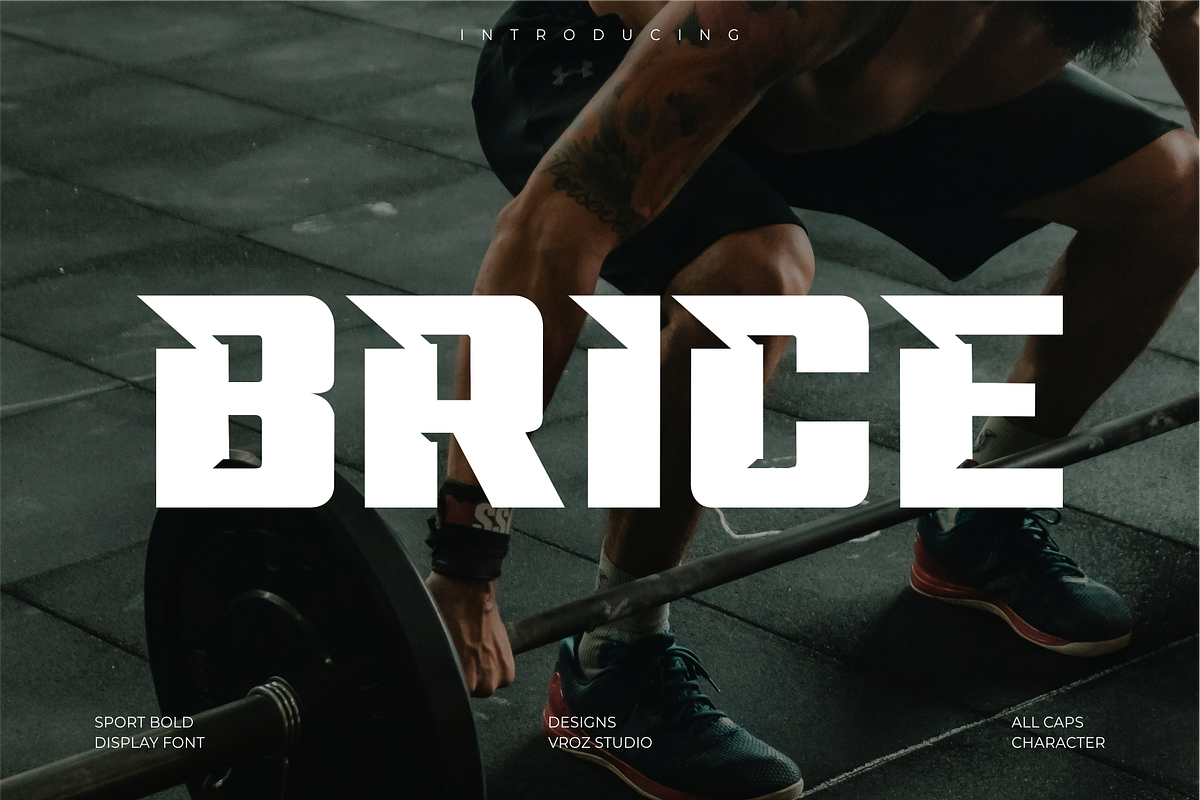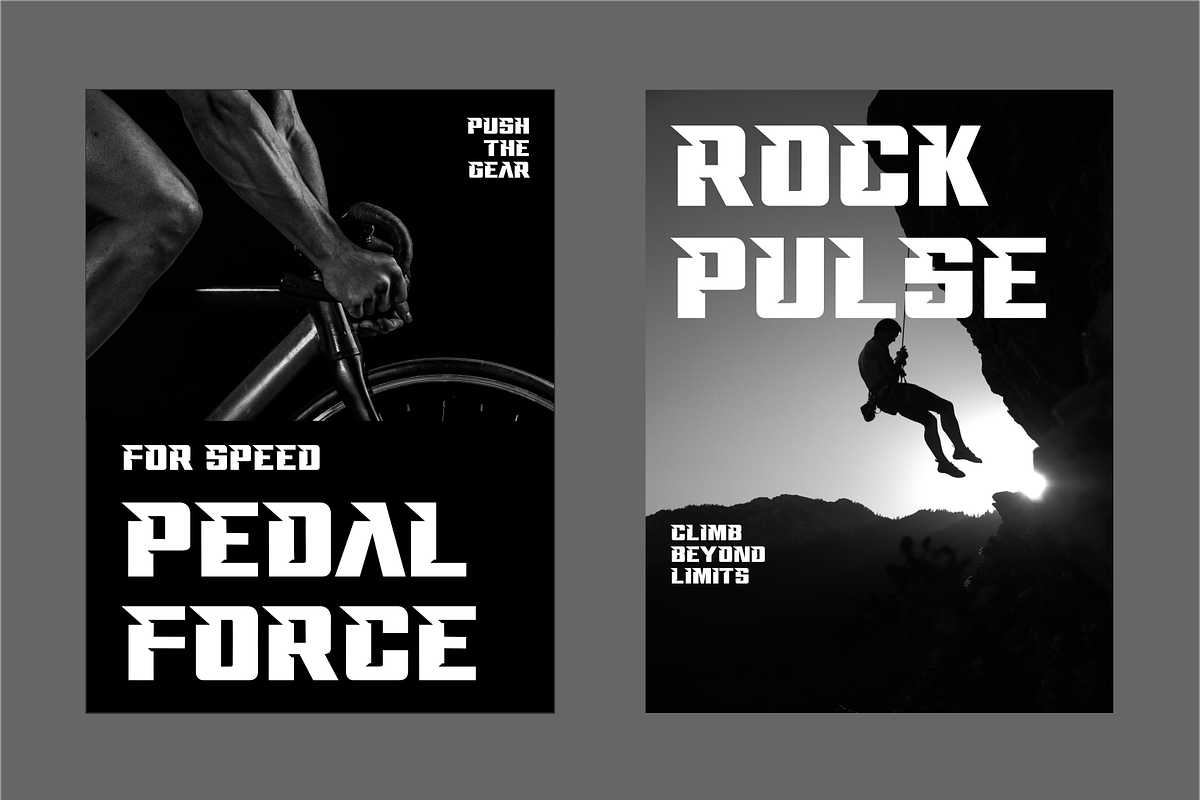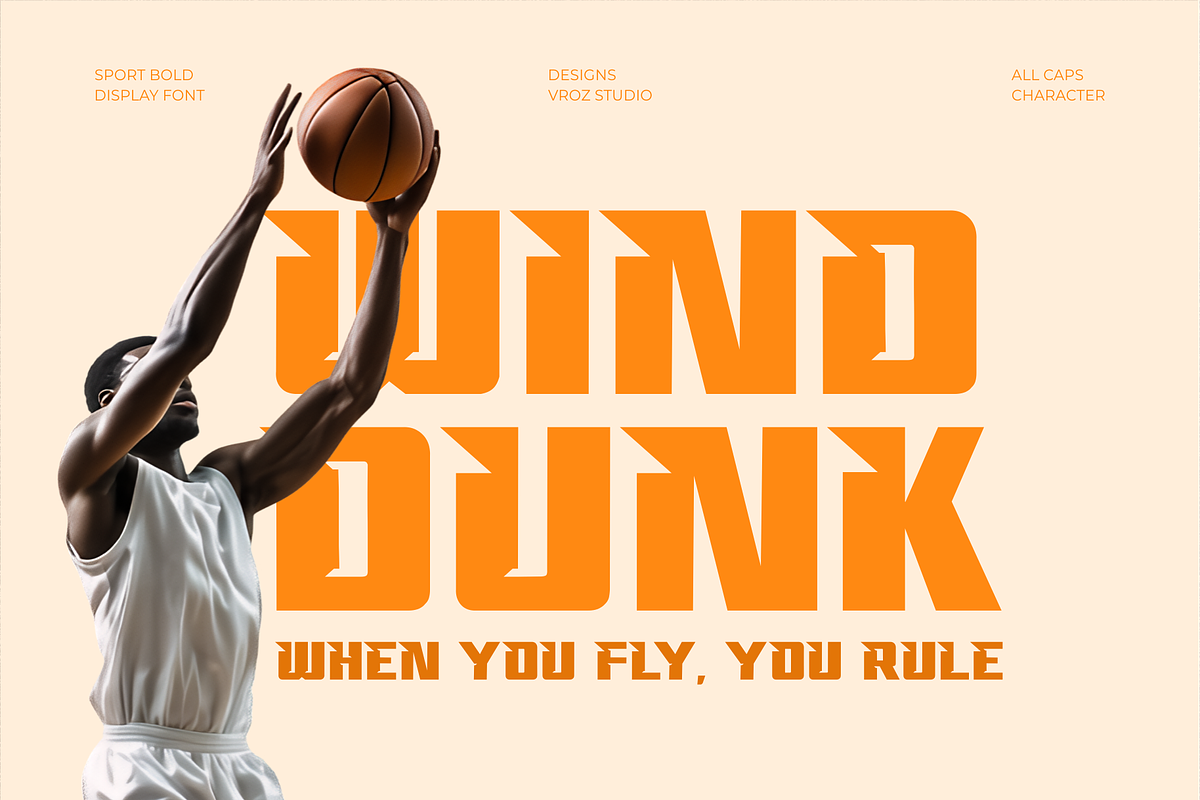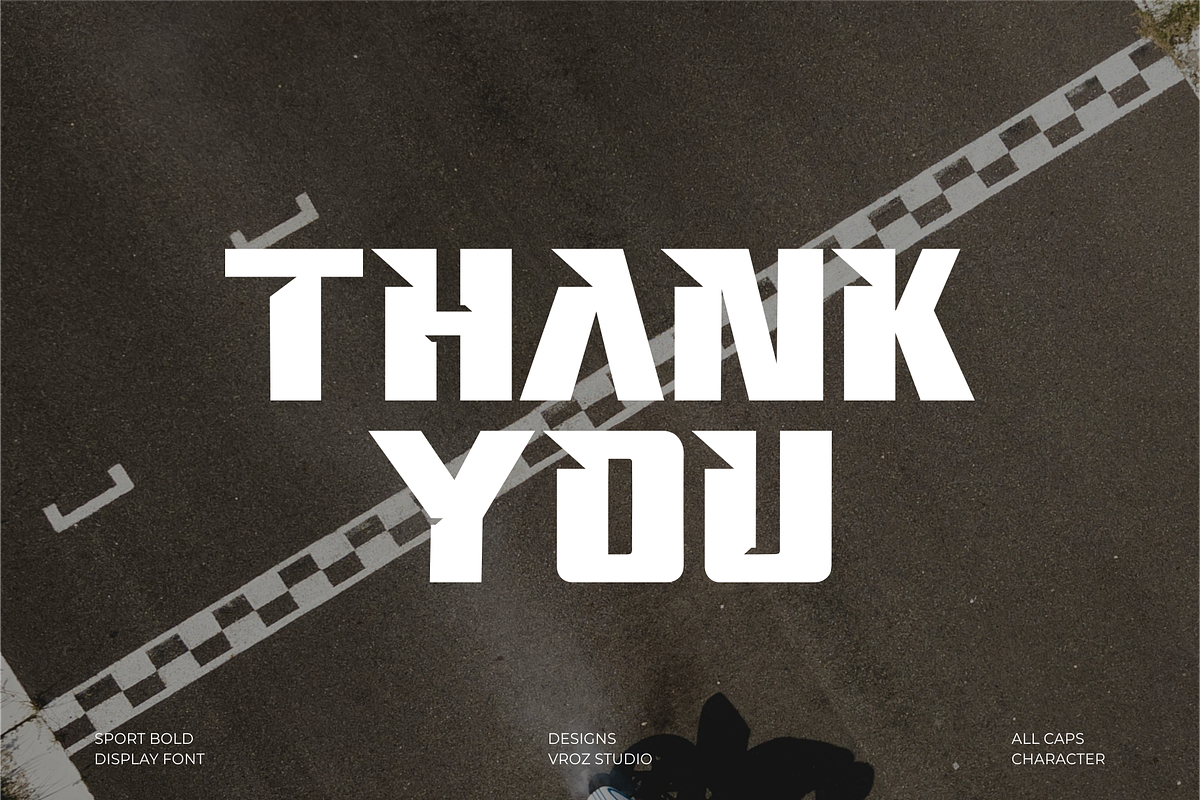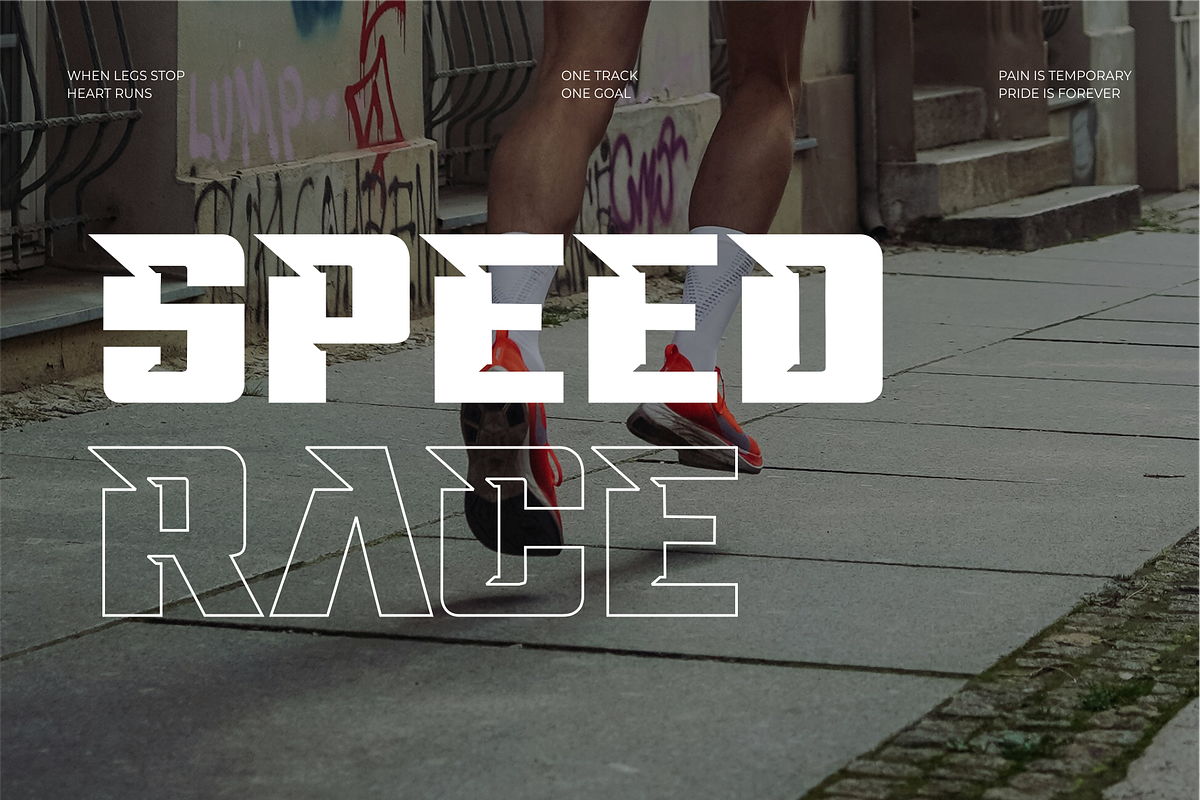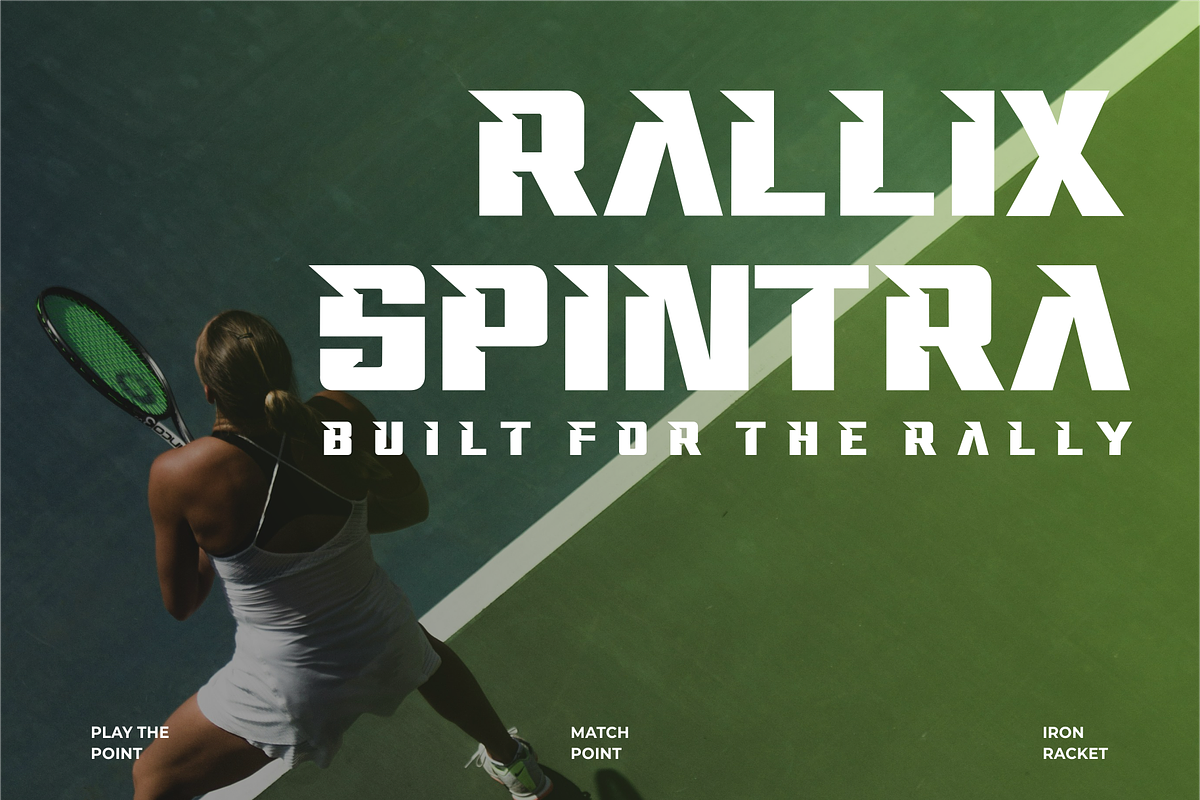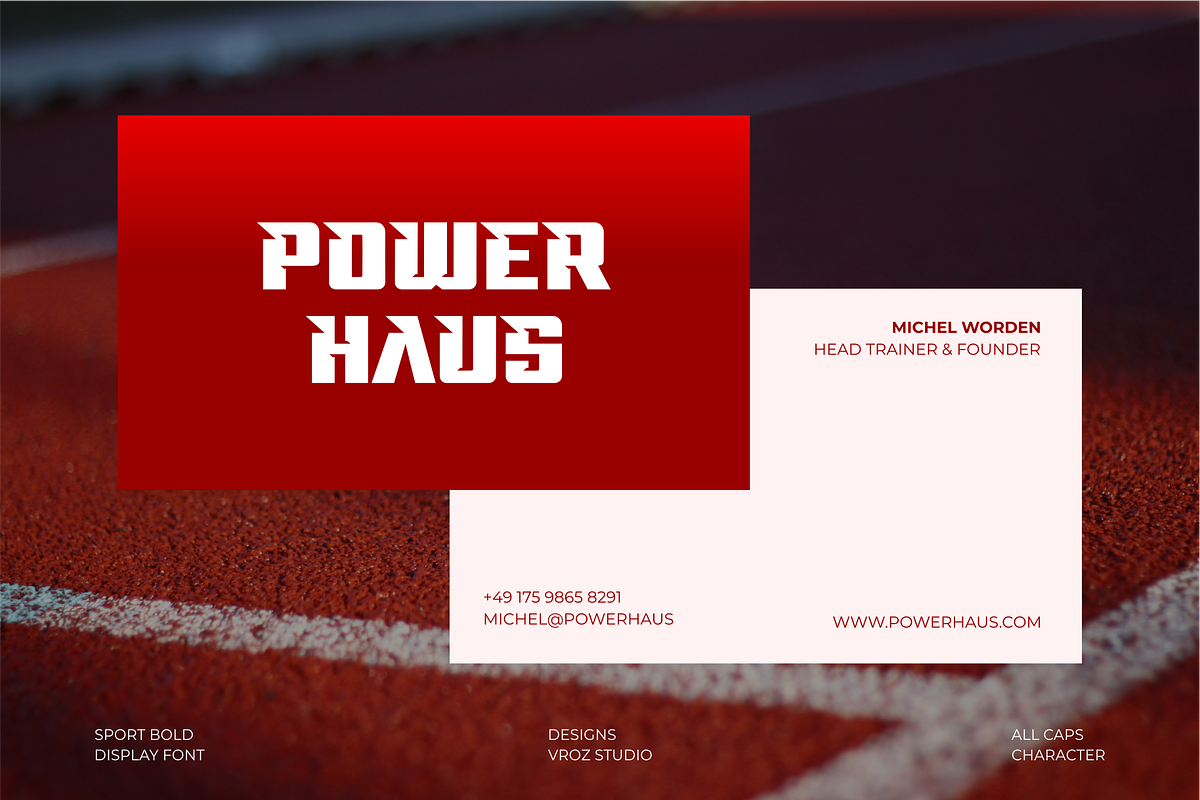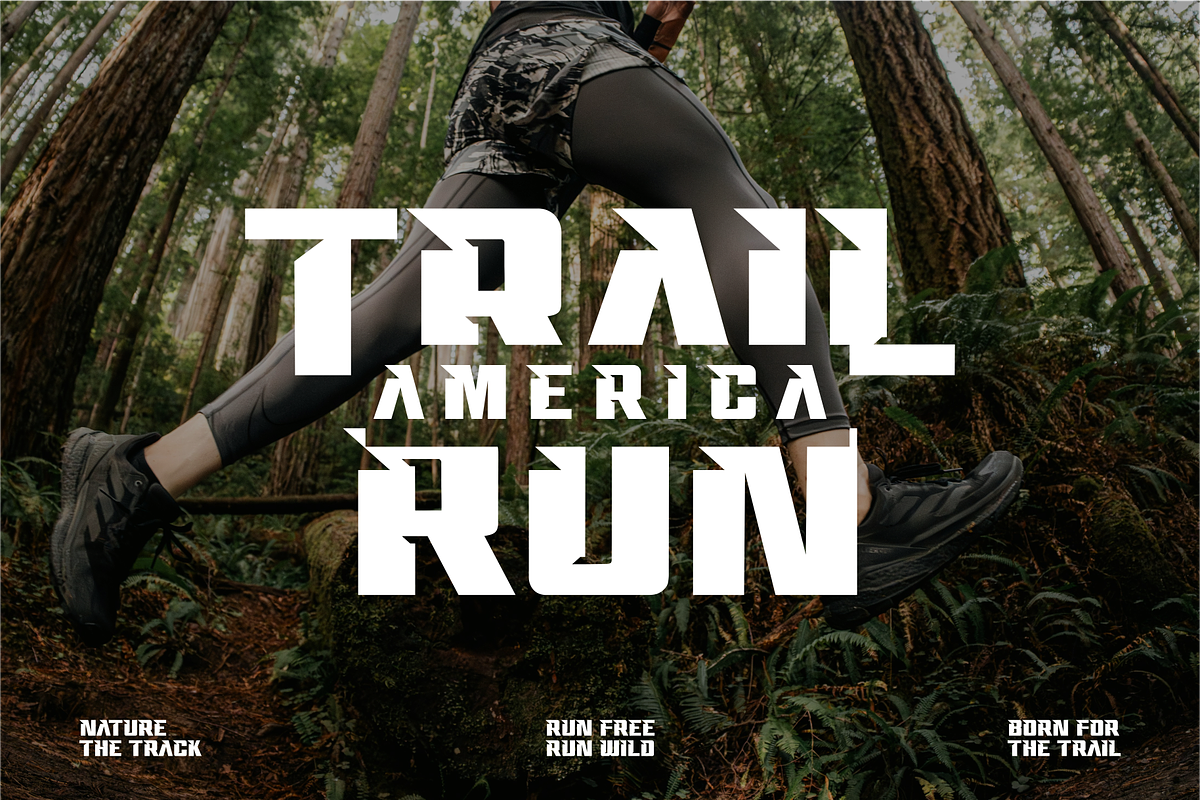
Brice - Sports Font
BRICE is a bold sport display font designed to deliver strength, speed, and visual impact. Crafted with sharp edges, solid proportions, and a dynamic athletic structure, this typeface is ideal for sports branding, team identity, fitness visuals, and competitive design projects.
Its powerful letterforms work perfectly for gym branding, football posters, basketball promotions, racing graphics, esports visuals, and modern athletic campaigns. BRICE maintains strong readability while delivering an energetic and confident look, making it suitable for both headlines and large-scale typography.
Whether used for sports apparel, event posters, logo design, or digital advertising, BRICE provides a modern sport aesthetic that feels bold, clean, and professional. This font is built to support high-performance visuals where power and clarity matter most.
BRICE is created to support strong, modern, and competitive designs. Whether for branding, promotion, or digital media, this font delivers clarity, power, and consistency across every application.